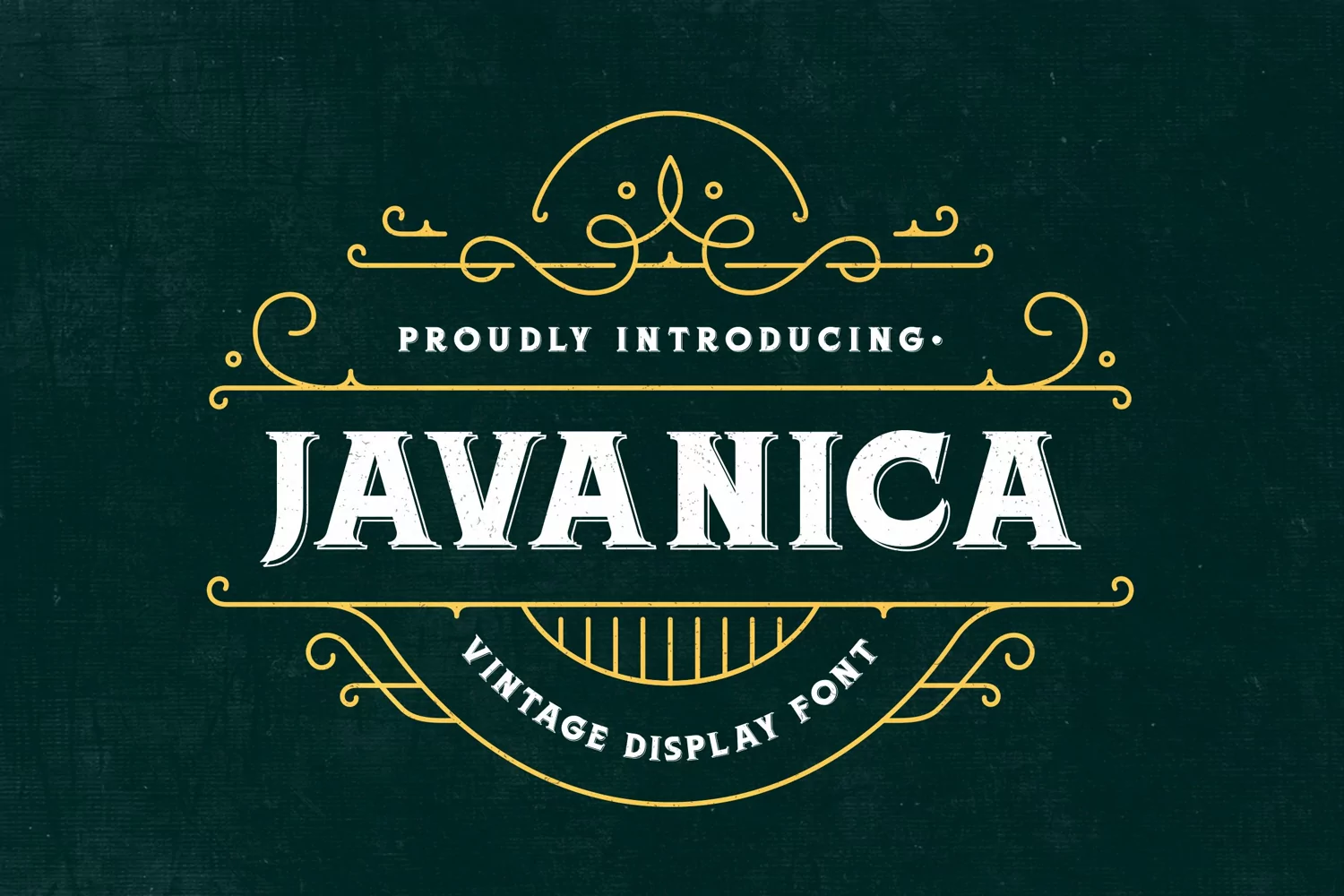
Javanica - Vintage Display Font
Javanica is a vintage display font that was made by hand and inspired by classic posters.
Javanica comes with uppercase, lowercase, numerals, symbols & punctuations, alternate, ligature and multilingual support.
Perfect to use for Logotype, Letterhead, Poster, Apparel Design, Labels, and many more designs.